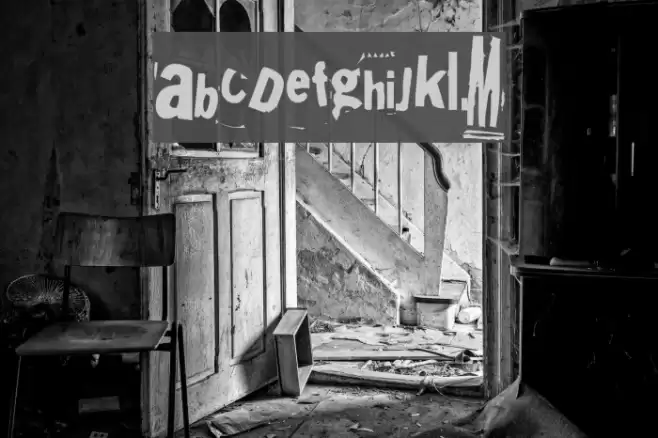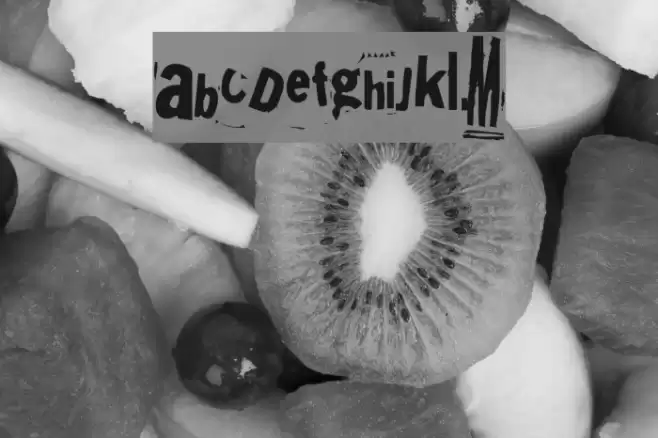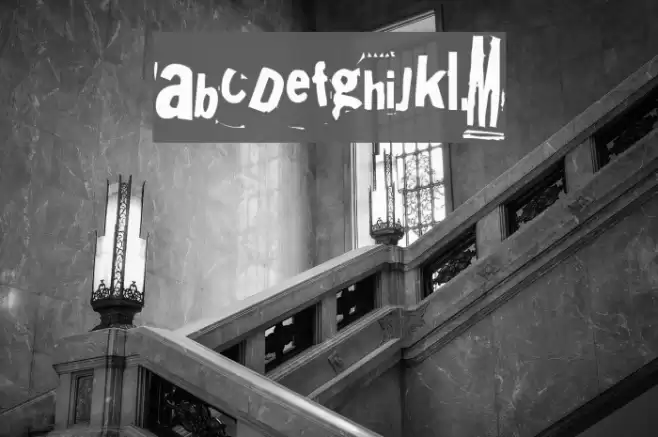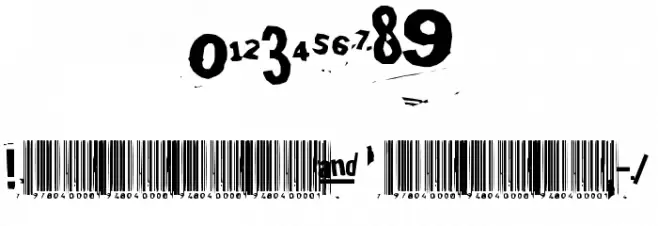
This font features a playful and chaotic design, with irregular shapes and varying sizes that give it a hand-drawn, artistic feel. The letters are bold and slightly distorted, creating a sense of movement and energy. The uppercase and lowercase letters are distinct, with some characters having exaggerated features, such as elongated stems or oversized bowls. The numbers follow the same whimsical style, adding to the overall quirky aesthetic. This font is ideal for projects that require a fun and unconventional look.
A playful, chaotic font with a hand-drawn, artistic feel from Uncategorized fonts.